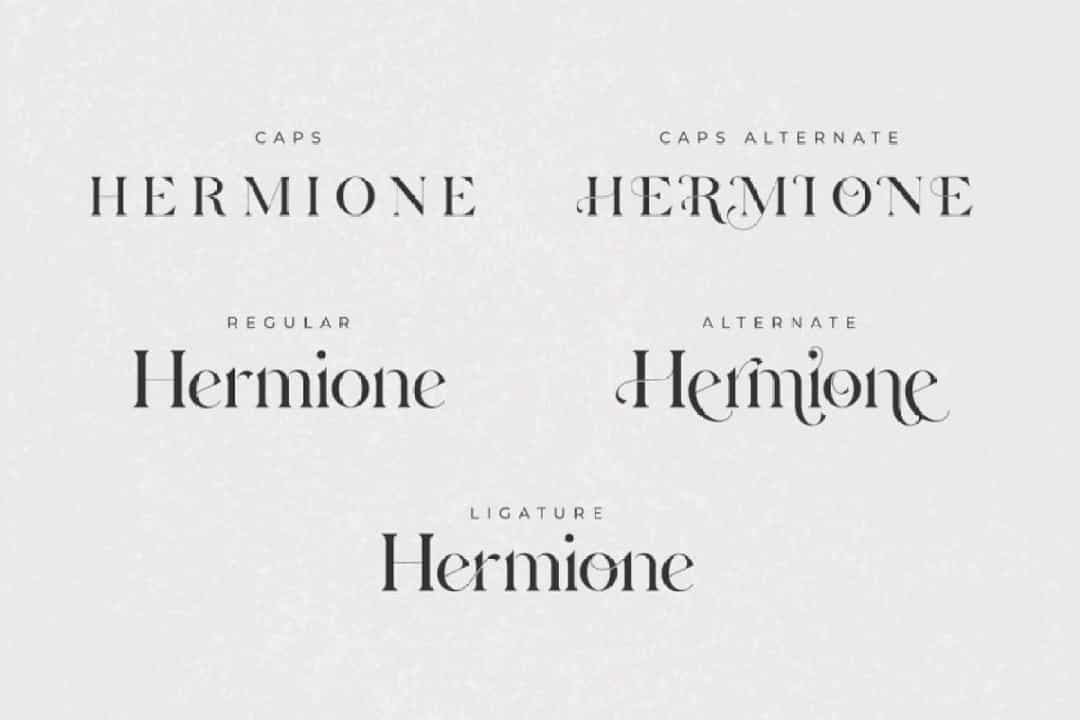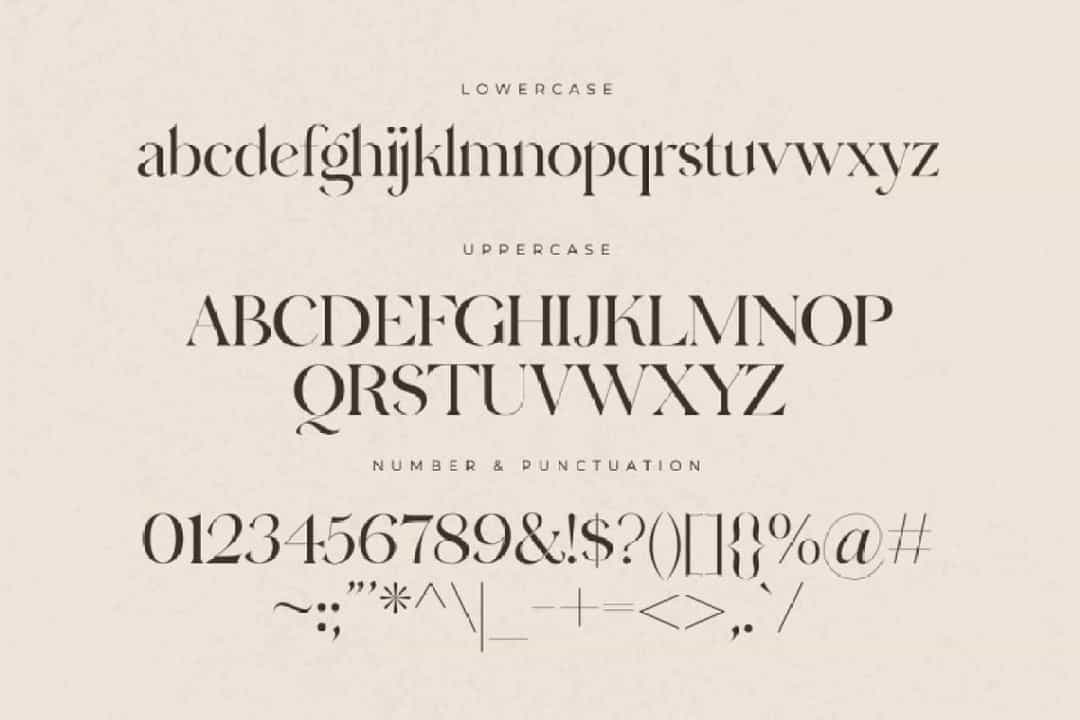
Hermione Classic font is an elegant font designed to evoke timeless sophistication, using the ligatures method to join letters together. Perfect for branding, logos masterheads invitations etc… It features 48 ligatures; alternative 63 are provided for lower and upper cases as well as punctuation marks and numbers making Hermione highly adaptable and flexible.